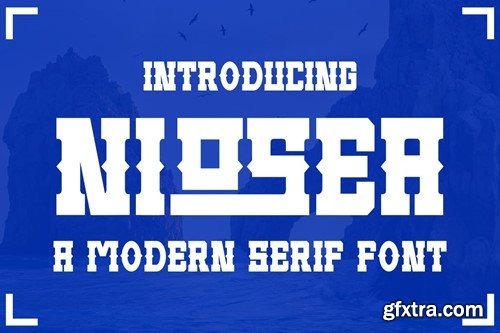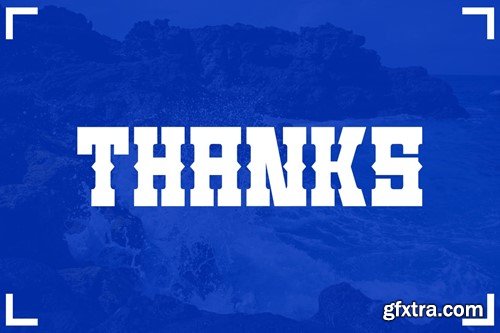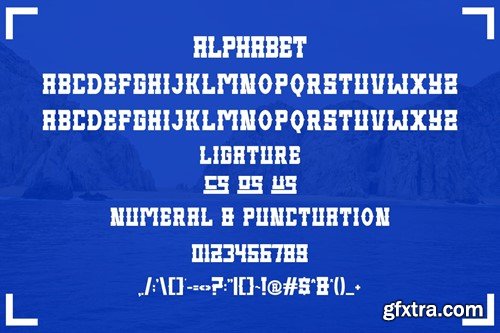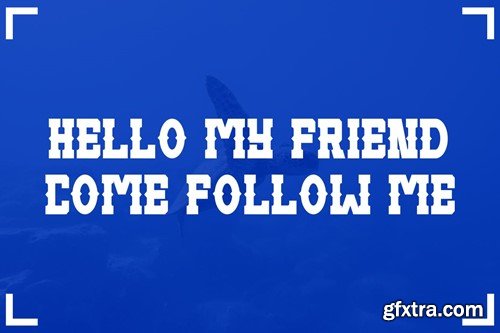
尼可西亚 - 现代字体 FT2MTFE
Niosea - Modern Font
Introducing Niosea Modern Serif Font. Niosea is a modern and simple font, best used as a display for headings, logos, branding, magazines, product packaging and invitations. Niosea come with clean lines and smooth curves give any project an extra touch of class. What you get: Thank you.